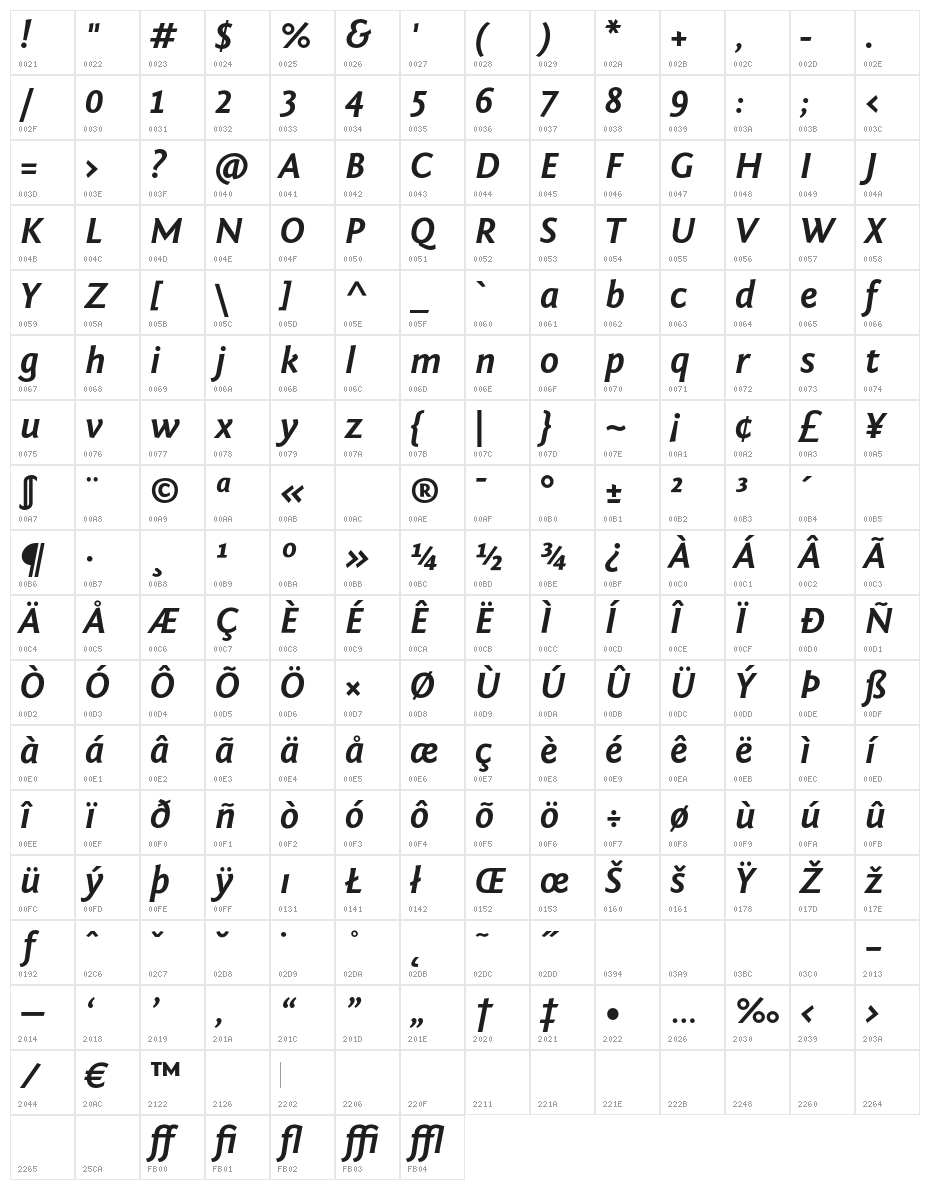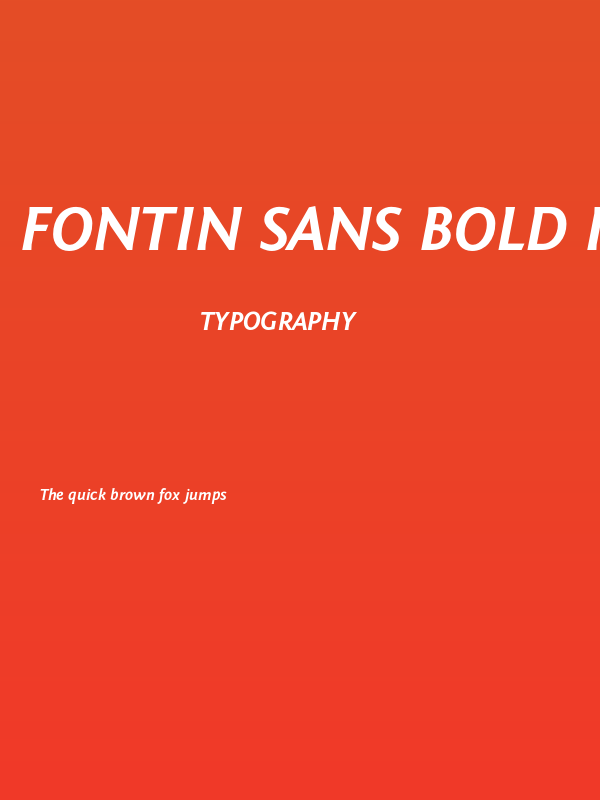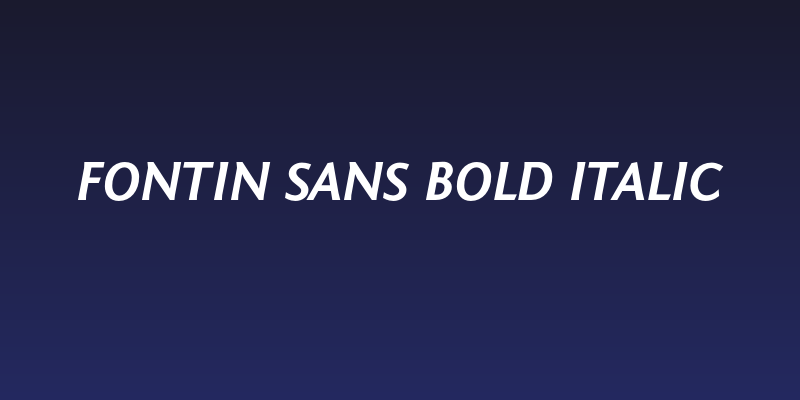
Fontin Sans Bold Italic Font
Fontin Sans Bold Italic Description
This font showcases a bold and italicized style, characterized by its clean and modern sans-serif design. The letters are slightly slanted, adding a dynamic and elegant touch to the overall appearance. The bold weight gives it a strong presence, making it suitable for attention-grabbing headlines and titles. The character spacing is normal, ensuring readability while maintaining a compact look. The font exhibits medium contrast in stroke thickness, providing a balanced and harmonious visual appeal. Its versatility makes it ideal for both digital and print media, offering a contemporary and professional aesthetic.